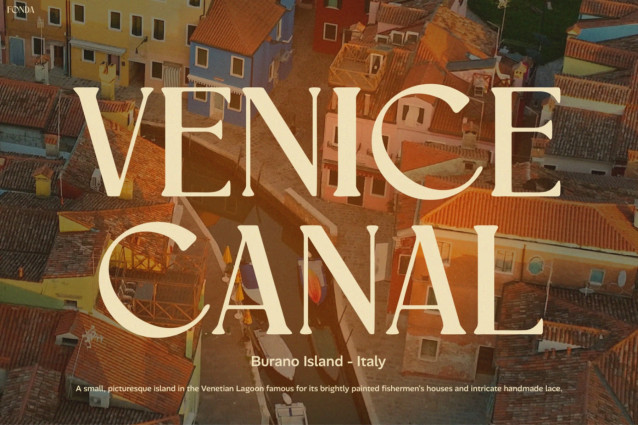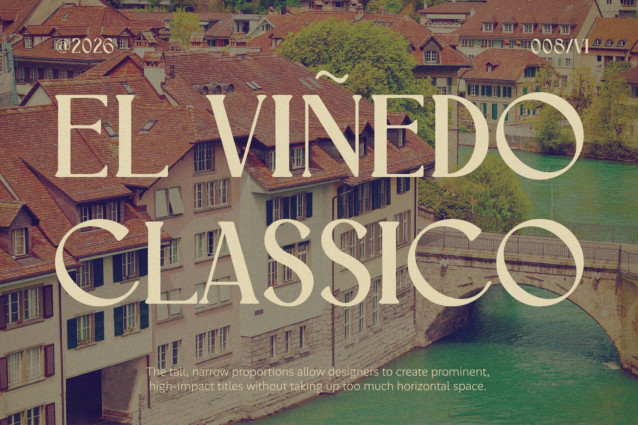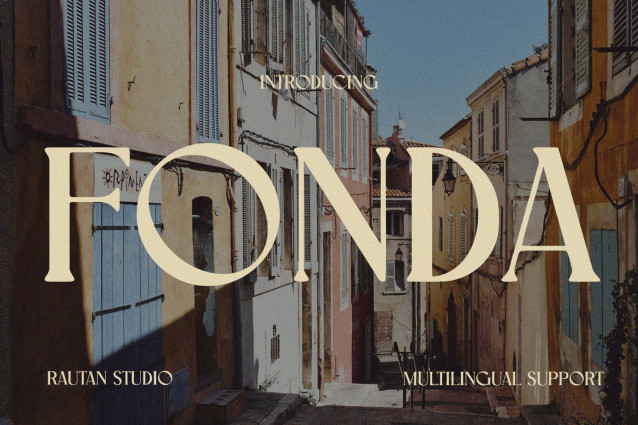
FONDA FONT
FONDA – Vintage Old Town & Rustic Display Font
Vintage Font FONDA feels like a warm afternoon stroll through a sun-soaked old town square. To begin with, its soft rounded serifs and gentle curves capture a rustic, storybook charm. At the same time, the letters carry just enough weight to feel confident and grounded. This balance makes FONDA perfect for warm, nostalgic branding. Furthermore, it comes packed with multilingual support across 67 languages.
It also includes extended accented characters for global flexibility. As a result, FONDA speaks fluently across cultures while keeping its cozy, old-world soul intact. Whether paired with travel photography or rustic textures, this font instantly adds character and warmth to any design.